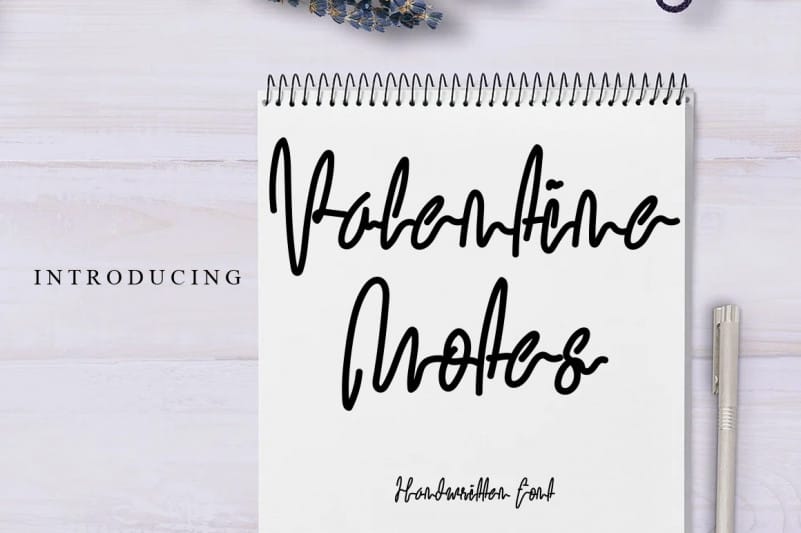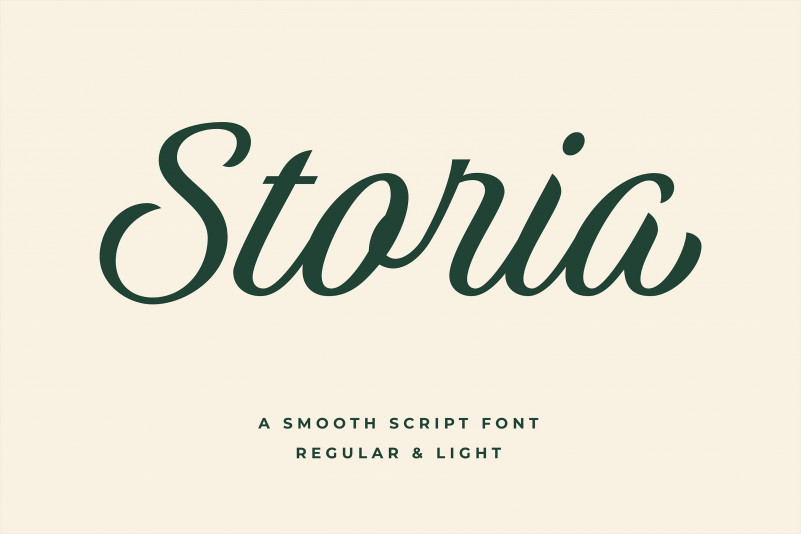
Handwritten Font Collection
Introducing 5 hand drawn fonts and 5 alternative styles made by Julia Dreams. Designed to work perfectly in multiple designs like wedding invitations, branding, logos, Instagram posts, posters and more. These fonts and elements are ideal for the creation of the corporate identity of your business or logo for your small store. Or if you suddenly need to decorate your room or create a wedding invitation. Add this beautiful fonts and elements to create a postcard.